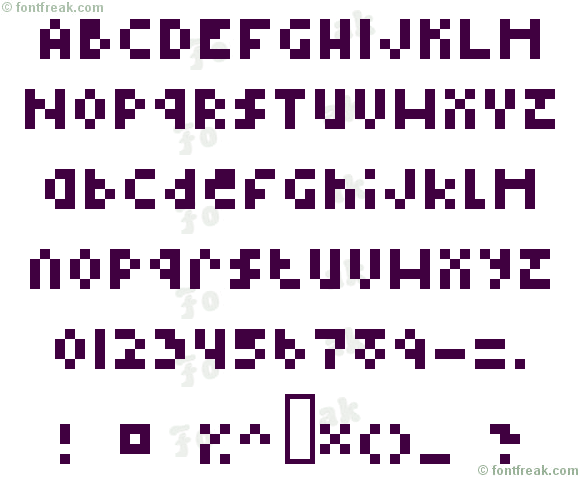
Type Four
About Type Four
The Type Four font by Dustbust Fonts is a striking display typeface that captures attention with its unique geometric forms. This freeware font is characterized by its bold stroke weight and minimalistic design, making it an excellent choice for projects that require a modern, clean aesthetic. The letters feature a consistent width, which contributes to a harmonious spacing that enhances readability while still maintaining a distinctive presence. The lack of elaborate decorative elements allows the Type Four font to stand out in a subtle yet impactful manner.
Type Four is particularly well-suited for a variety of creative applications. It excels in branding projects, where its boldness can help convey a strong identity for small businesses or startups. Additionally, it works wonderfully for promotional materials, such as flyers and posters, where clear communication is essential. The font’s modern style makes it an ideal choice for tech-related websites and apps, as well as for artistic endeavors like album covers and event invitations. Graphic designers seeking to create striking visuals will find Type Four to be a versatile asset in their toolkit.